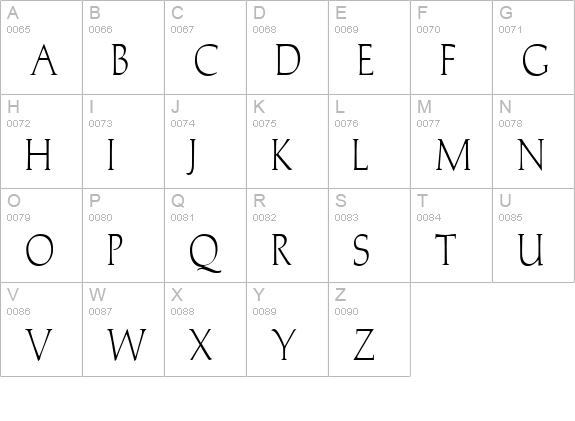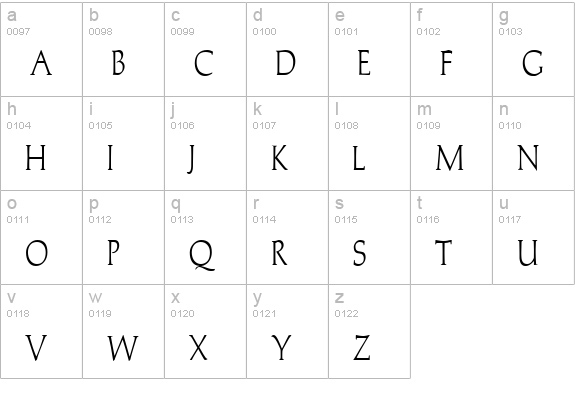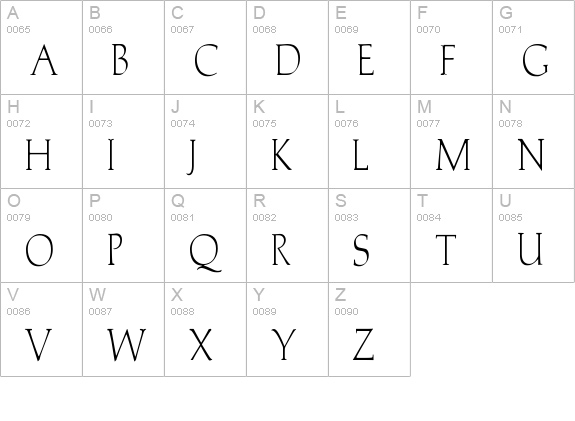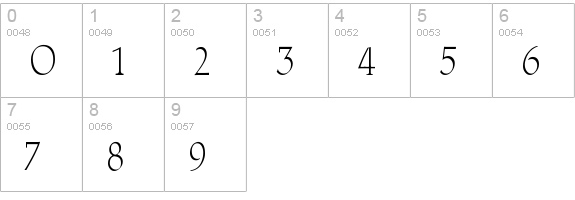
Trajan'sCapsCondensed Normal Font Details
Trajan'sCapsCondensed Normal is the standard, neutral variant in the Trajan'sCapsCondensed typeface family \xE2\x80\x94 well suited to general body text, paragraphs, and standard typographic work.
Trajan'sCapsCondensed Normal font is a sleek and sophisticated typeface that exudes elegance and refinement. With its condensed design, this font is perfect for creating eye-catching headlines, titles, and logos. The clean lines and sharp angles of the letterforms give it a modern and timeless appeal. This font is not only visually striking but also highly versatile. It can be used in a wide range of design projects, from print materials such as brochures, posters, and business cards to digital platforms like websites and social media graphics. Its bold and commanding presence will ensure that your message stands out and leaves a lasting impression. One of the best things about Trajan'sCapsCondensed Normal font is that it is freely available to download at FontsMarket.com. This means that you can easily access this high-quality font without any cost. Whether you are a professional designer looking for a new addition to your font library or a casual user in need of a stylish typeface, this font is an excellent choice. The free availability of Trajan'sCapsCondensed Normal font makes it accessible to everyone, regardless of their budget or resources. It eliminates the need to invest in expensive fonts, allowing you to create stunning designs without breaking the bank. FontsMarket.com provides a convenient and reliable platform where you can download this font hassle-free. In conclusion, Trajan'sCapsCondensed Normal font is a must-have for anyone looking to add a touch of sophistication and style to their design projects. Its sleek design, versatility, and availability for free download make it a valuable asset for both professional designers and design enthusiasts alike. Head over to FontsMarket.com now and start using this exceptional font to elevate your designs to new heights.